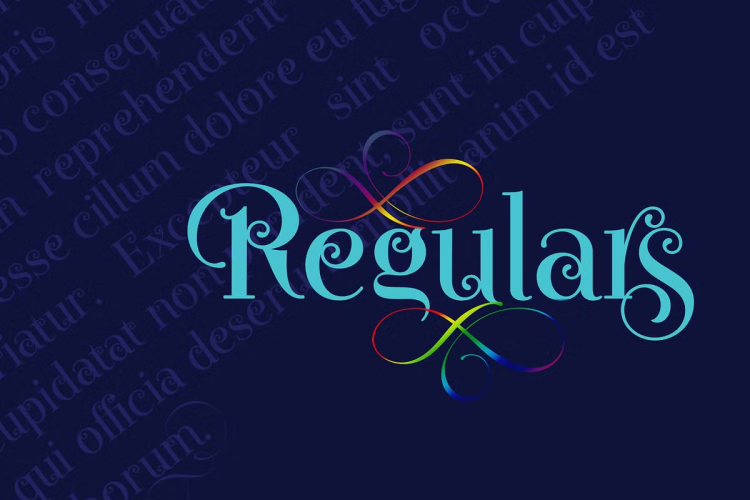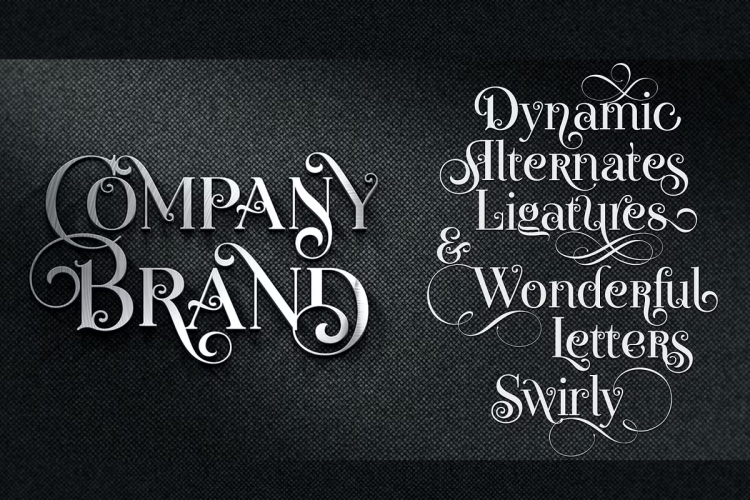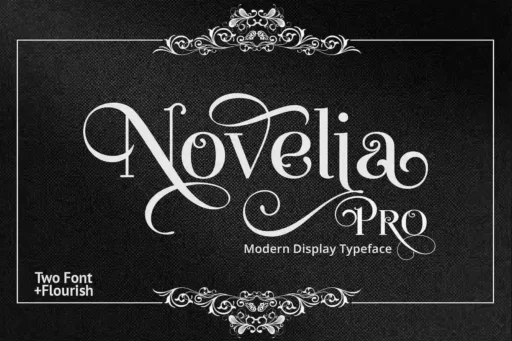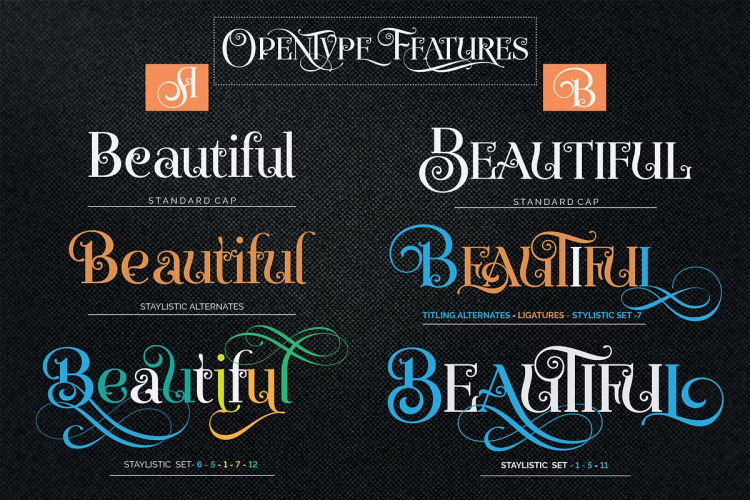
Novelia Pro Font
Novelia Pro is a modern display font that suitable for any kind of design works and add some sophistication to the project. Whatever you are producing – posters, logos, t-shirts, signs, business cards, magazines, book covers, wedding invitations or greeting cards – Novelia Pro will fit perfectly into your workflow.
Novelia Pro allows you to create some truly fantastic text by activating options such as Stylistic Alternates, Swashes, and Ligatures. Some of these can be found in programs like Adobe Photoshop, Illustrator or InDesign or through the Glyphs panel in applications like Adobe Illustrator or Photoshop CC. It’s easy to switch from standard characters to alternate designs in order to create a layout that you have in mind.
Moreover, The font package contains the characters, marks, symbols and numerals and is suitable for multilingual applications.
Novelia Pro Font is a Decorative Fonts font that brings a professional and versatile look to your projects. Novelia Pro is a modern display font that suitable for any kind of design works and add some sophistication to the project.